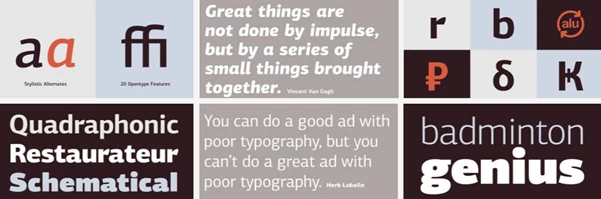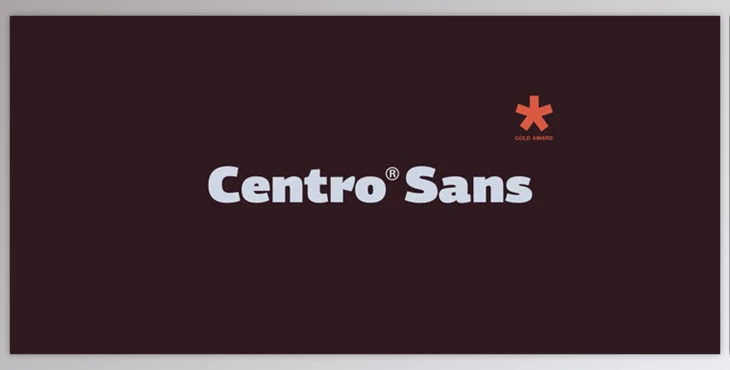
The PF Centro Sans Pro Font Family is an award-winning font family. It won a Gold Award by the European Design Awards in 2008 and the Excellence Award by the International Type Design Competition in 2009. The PF Centro Sans Pro Font Family is one of many that comprises the Centro Pro type system, which is an extensive type collection, made up of 40 different fonts, all with 1519 glyphs. It features three superfamilies: serif, sans, and slab, with true italics. Each font supports Latin, Greek, and Cyrillic character sets. According to the Euro Design Awards panel, Centro Pro was commended for its subtleties and its personality as it offers legibility, the most important quality, and it can be used for endless projects and looks as intended in any situation without distraction. Such attributes are in high demand among pan-European companies and institutions as they need a font family that works in a wide range of conditions.
Centro Pro is frequently used in print, via newspapers and magazines, and by corporations. Each font includes 270 copyright-free symbols; some have been internationally recommended for labeling on packages, public places, environmental signs, transportation, computing, fabric care, and city living. Thus, the PF Centro Sans Pro Font Family is a great choice for any designer needing such a reliable font family.